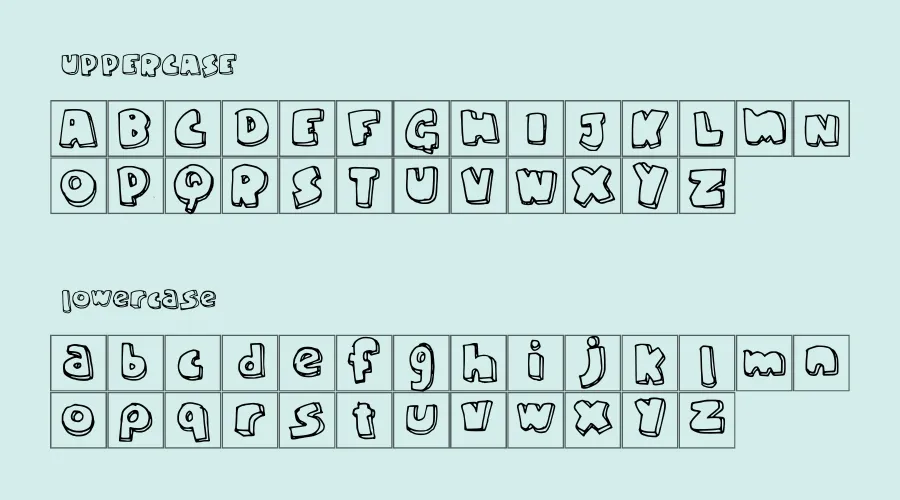
About Chunky Font
Tim Sutcliffe designed Chunky Font, it is a cartoon style this typeface is often used to create a stunning and readable design. It can be used anywhere where you want to create a new design.
As well as having a readable texture and a unique appearance, this typeface is attractive. And is perfect for logos, branding projects, homeware packaging, and all sorts of other lovely ventures that require a beautiful look. This font is very close to the metrobot font.